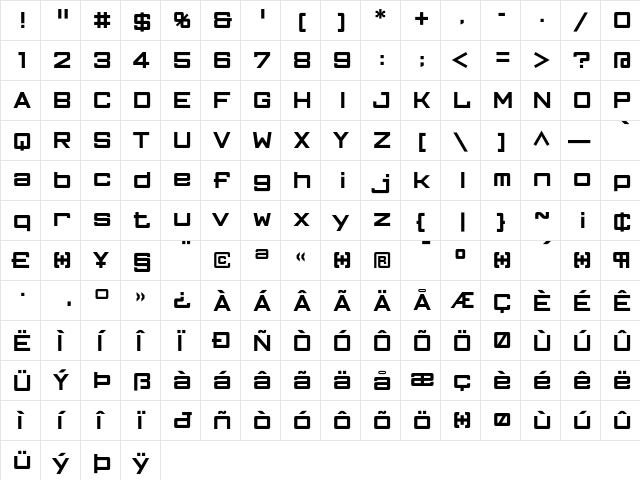
FFGothic TwoTwo
Design Context for FFGothic Typeface
FFGothic takes a clean, functional approach — its unadorned letterforms prioritise legibility and work reliably across screen and print environments.
Font Pairing: Works well alongside a characterful serif or display font that can carry the expressive load while FFGothic handles the functional copy.
Pro Tip: Pair FFGothic with a display or serif font for headlines — its neutral character makes it an excellent supporting player in complex typographic systems.